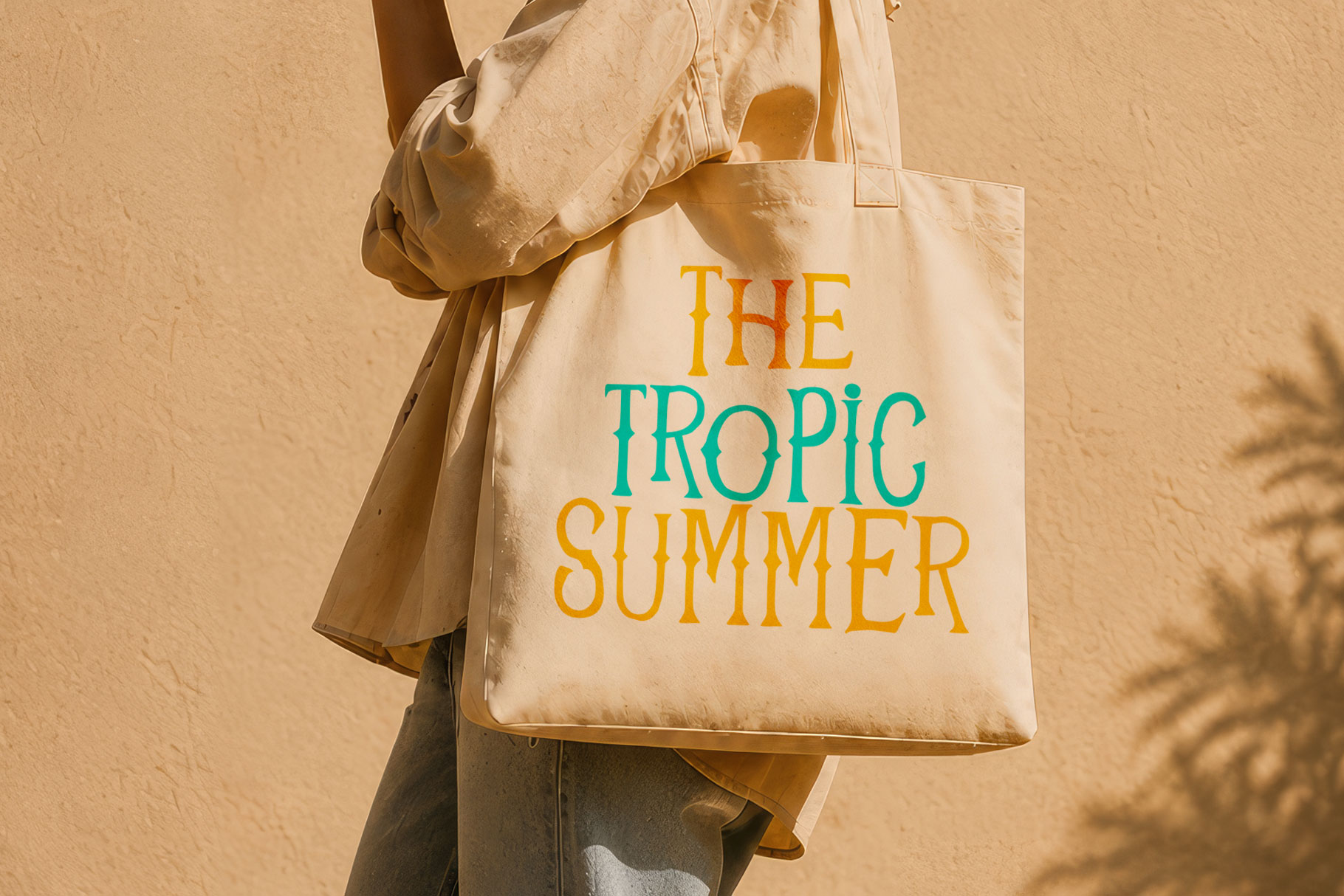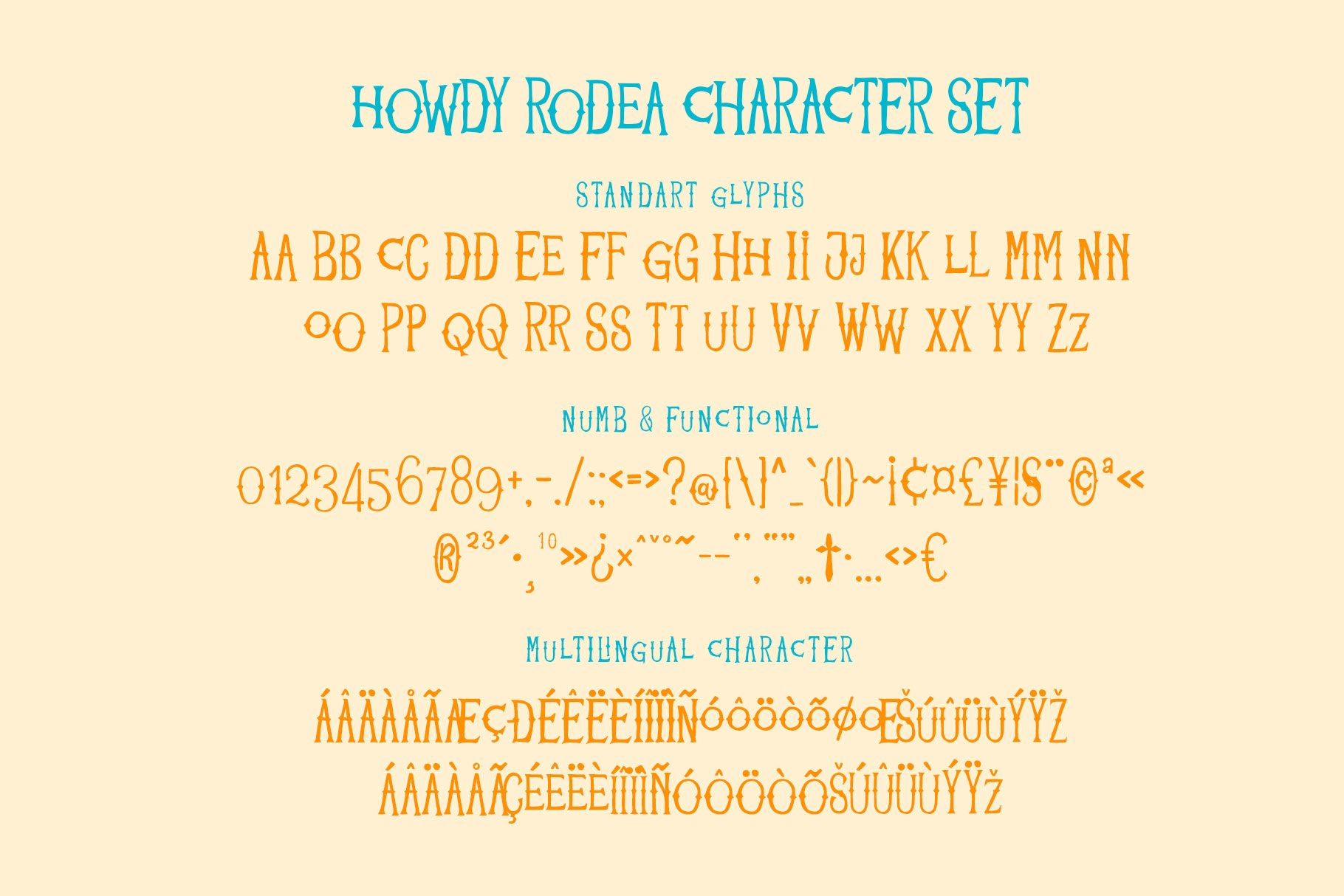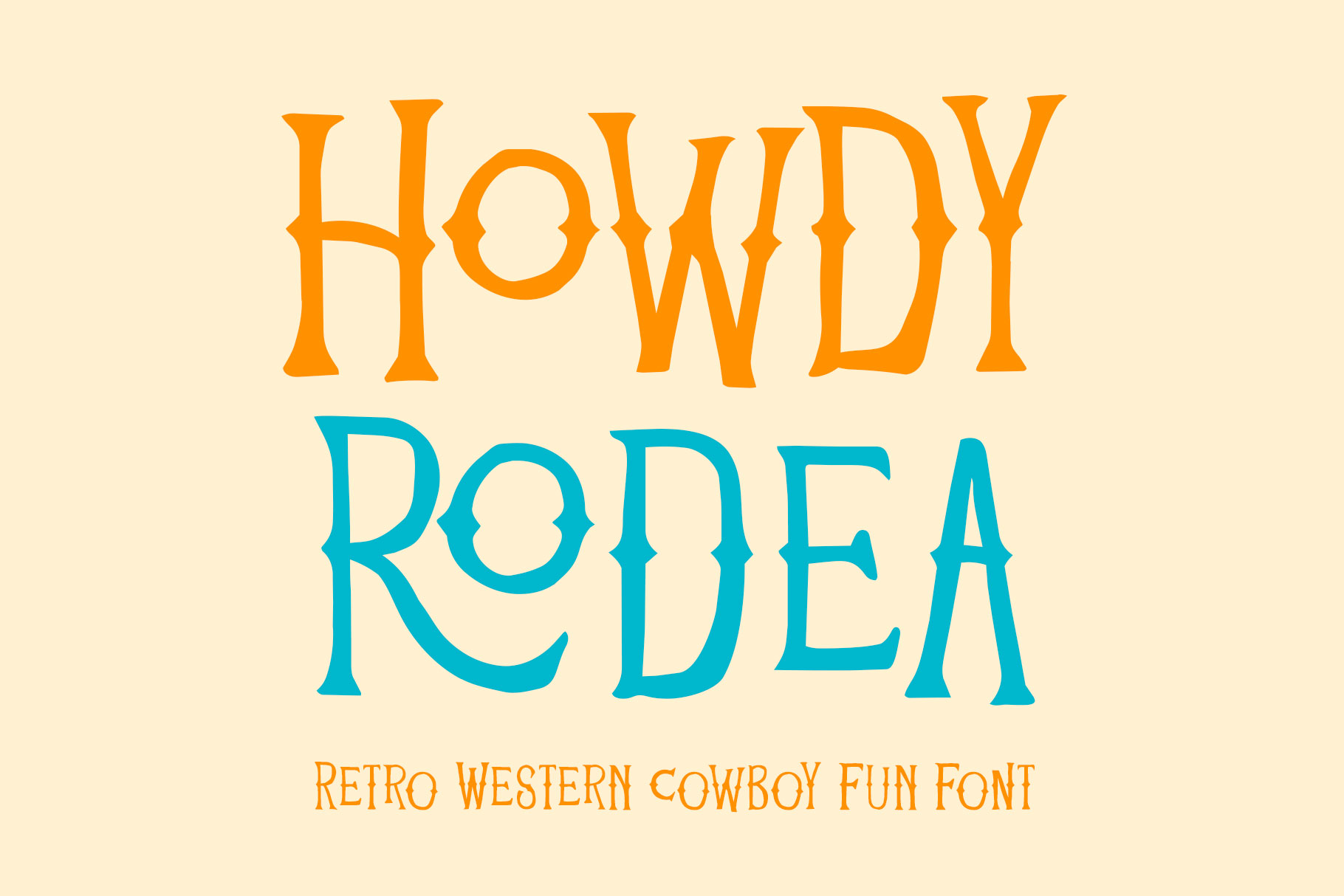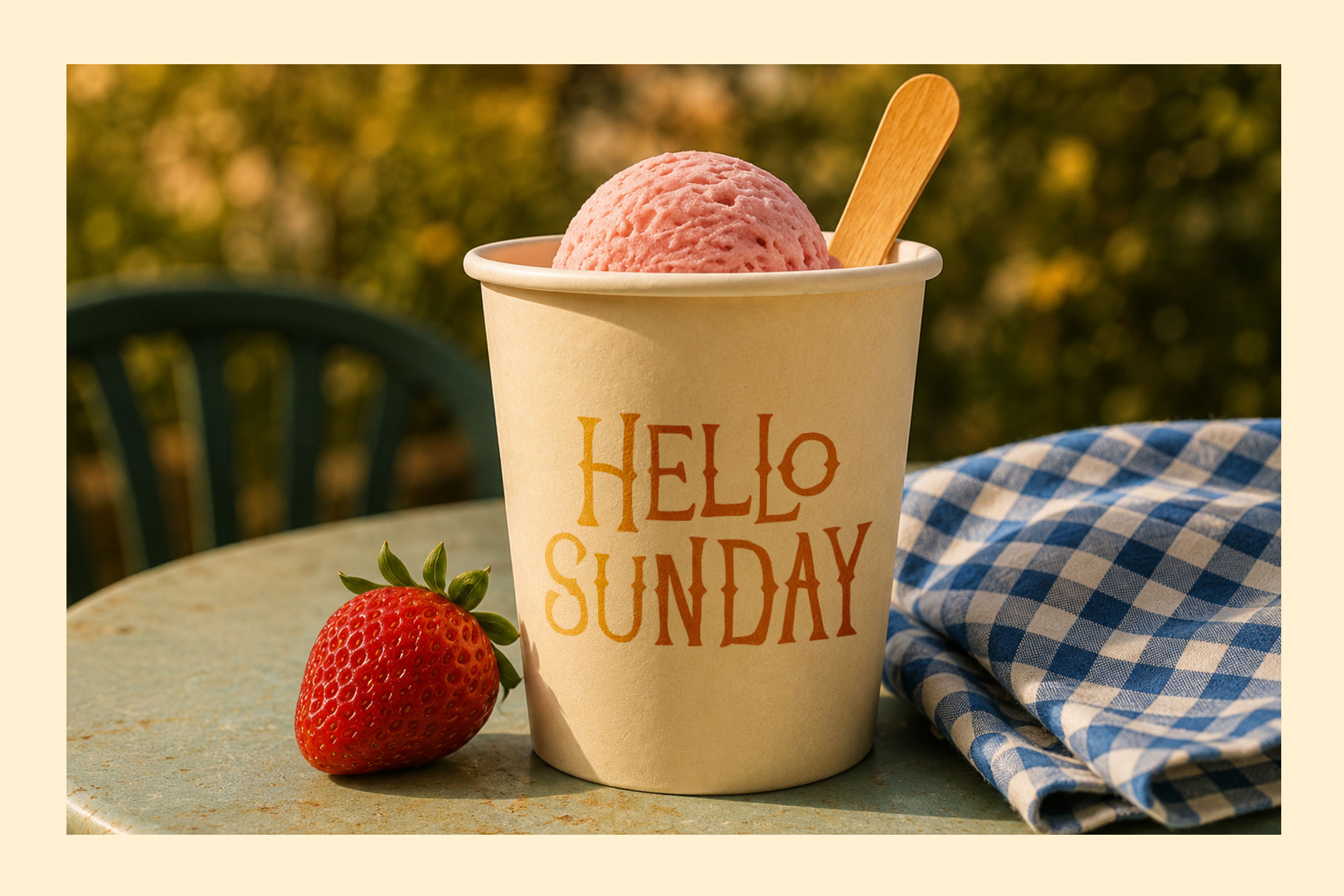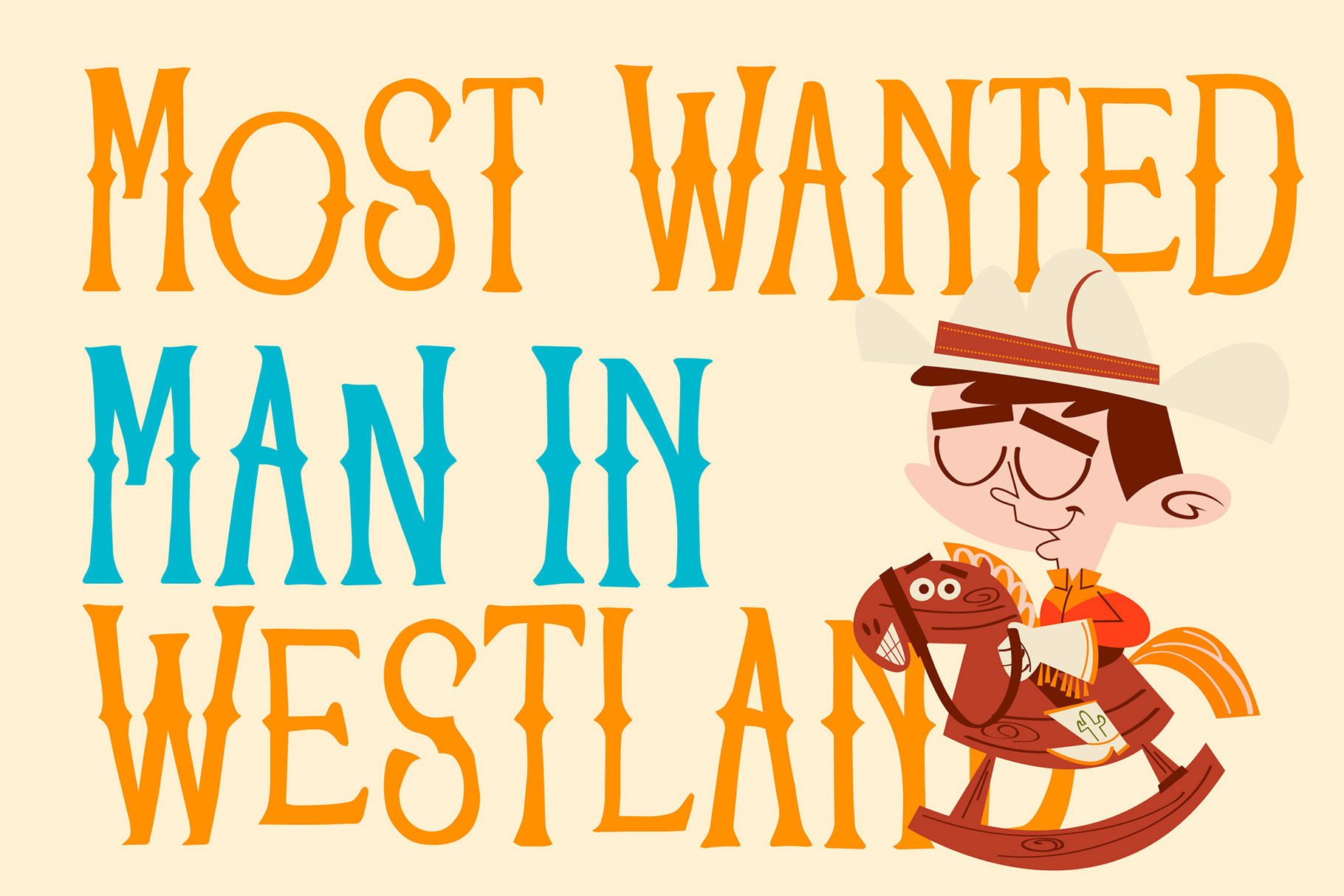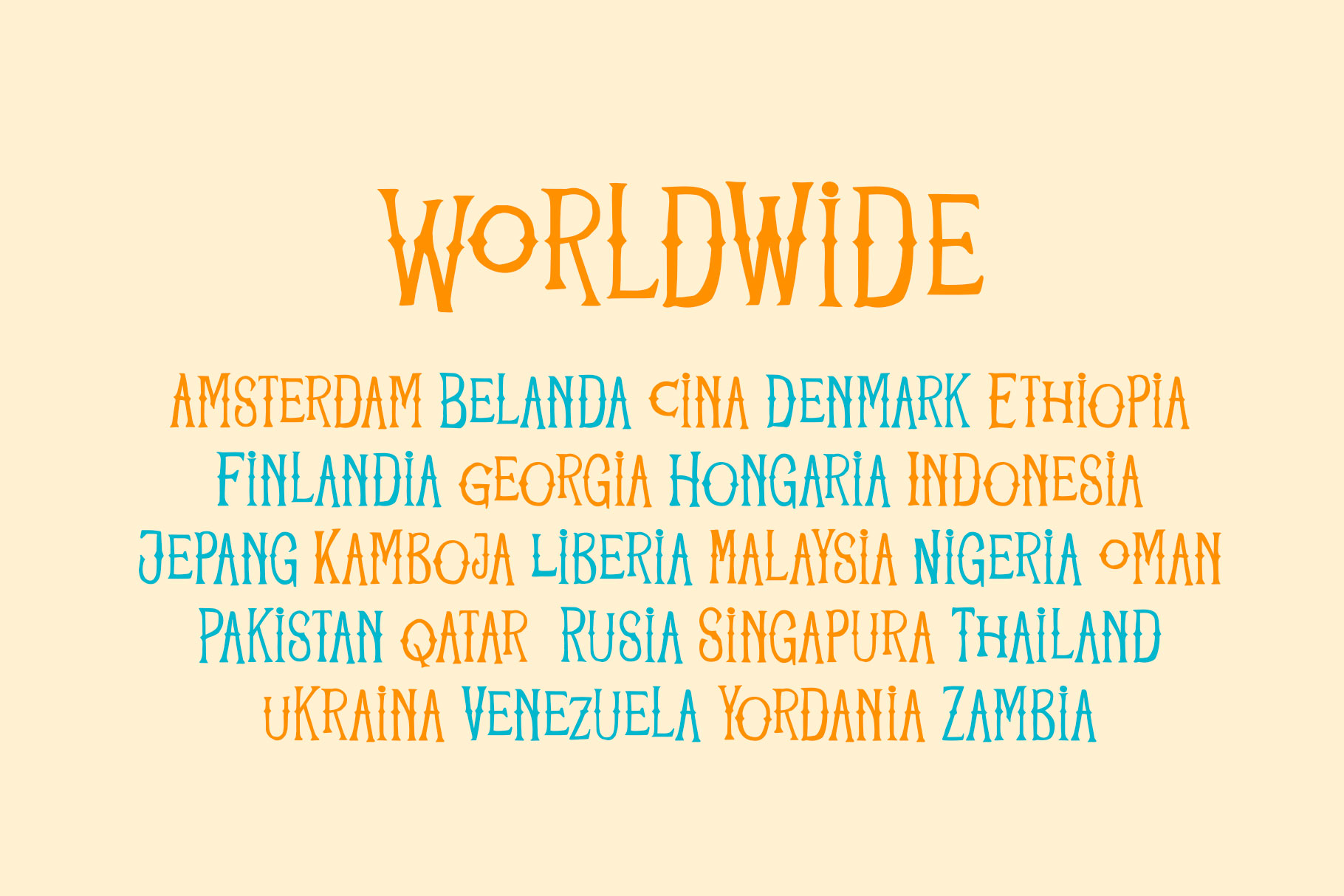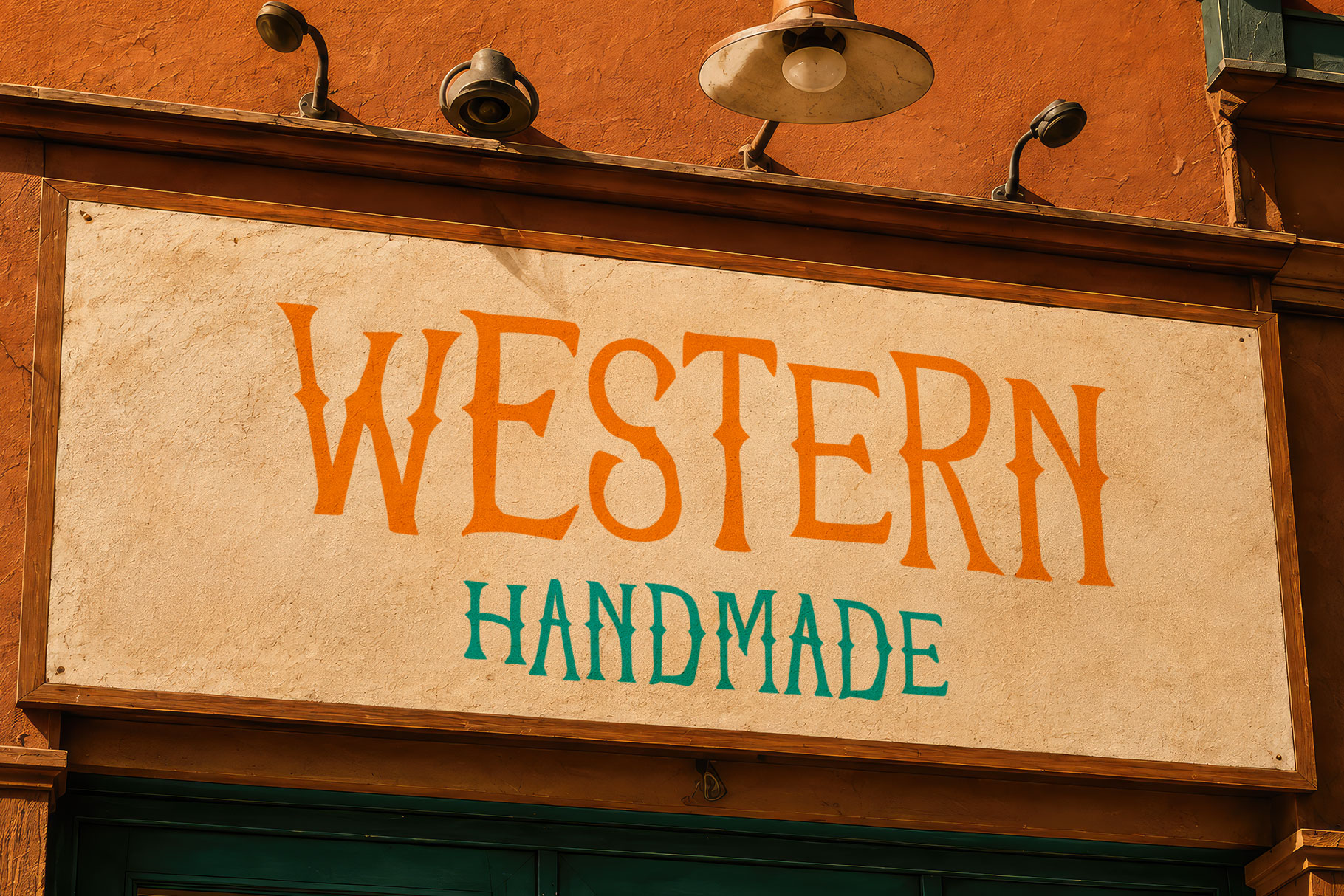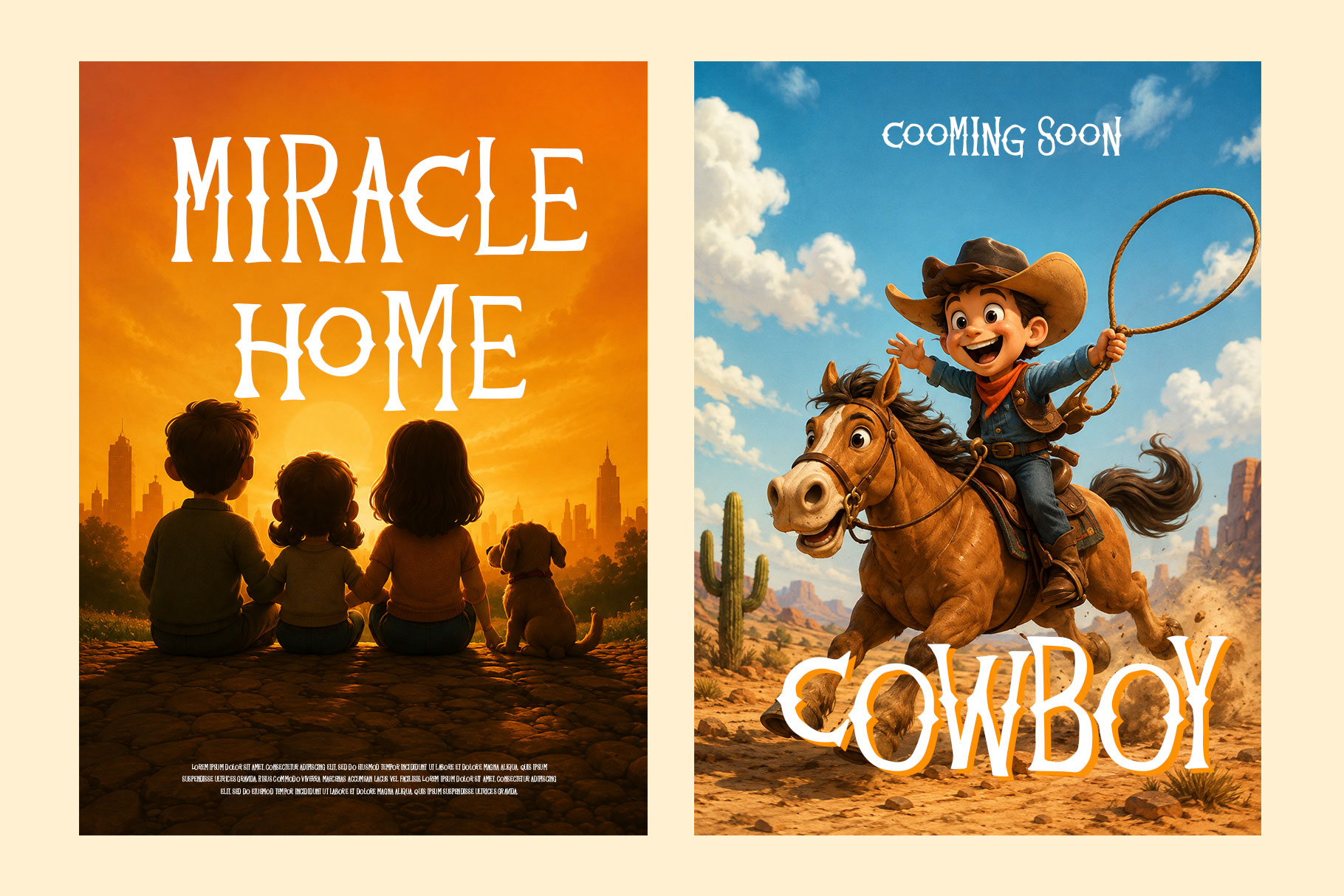
Howdy Rodea font brings a playful, adventurous personality to every word. Inspired by classic frontier lettering but reimagined with a quirky contemporary twist, its tall proportions, sharp serif details, and distinctive diamond-shaped transitions create an instantly recognizable visual character.
Howdy Rodea is a perfectly choice for any creative endeavor, creating, modern, lifestyle design such as logotype, title, cover, branding, invitations, social media posts, advertisements, printed quotes, product packaging, corporate brand, product designs, labels, watermarks, special events and any other project with fun touch.